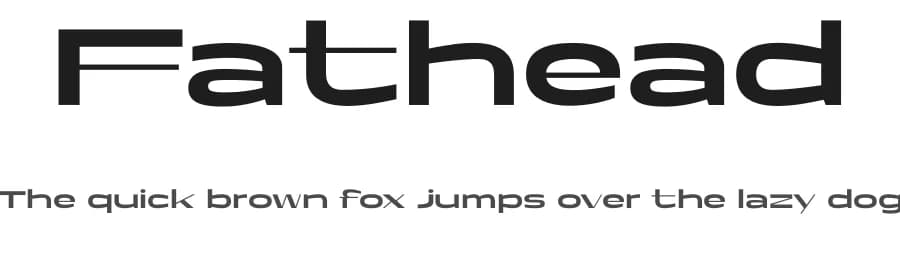
About Fathead Font
Introducing FATHEAD, a wide sans serif display font. Fathead has high contrast in strokes, aiming for that border between being legible and abstract, having extreme proportions, unique shapes, dense kern and a overall strong, heavy look. This typeface comes in three weights, FATHEAD Regular, Bold and Black. Each weight has 103 glyphs, an uppercase and lowercase alphabet and standard Latin script support. Being a display font is the perfect fit for pattern-like layouts, posters, book covers or block of texts. With its wide extended width base, diversity in proportions and complexity of shapes, this bold font family was designed for maximum visual and emotional impact. You have to get creative!
Fathead Font is a versatile sans-serif font that works for both headings and body text. Pair it with a contrasting serif or slab serif font to add visual interest and a clear distinction between titles and body copy.
Fathead Font